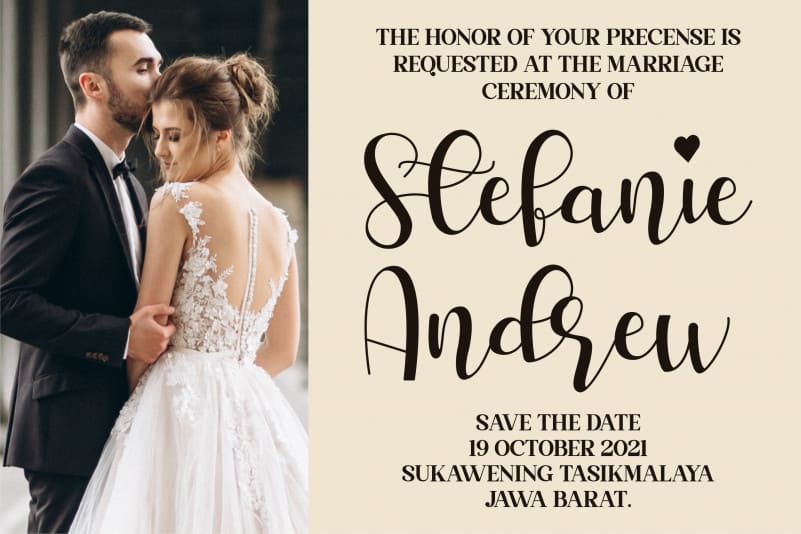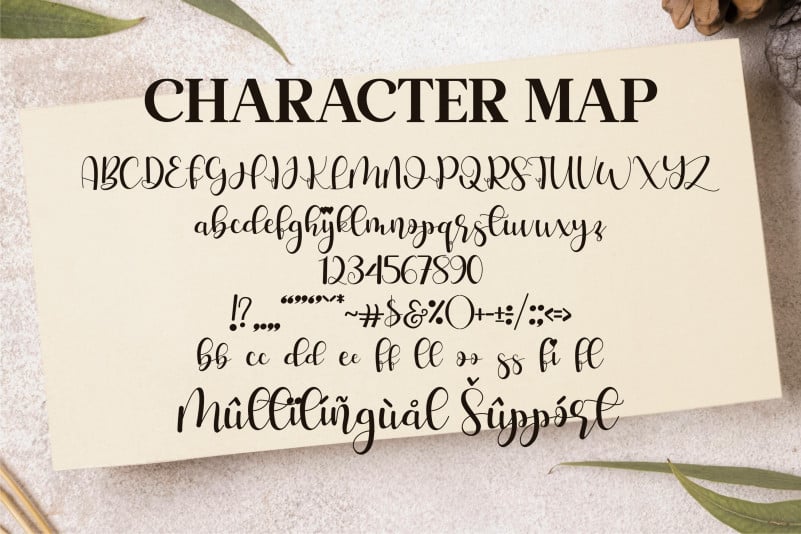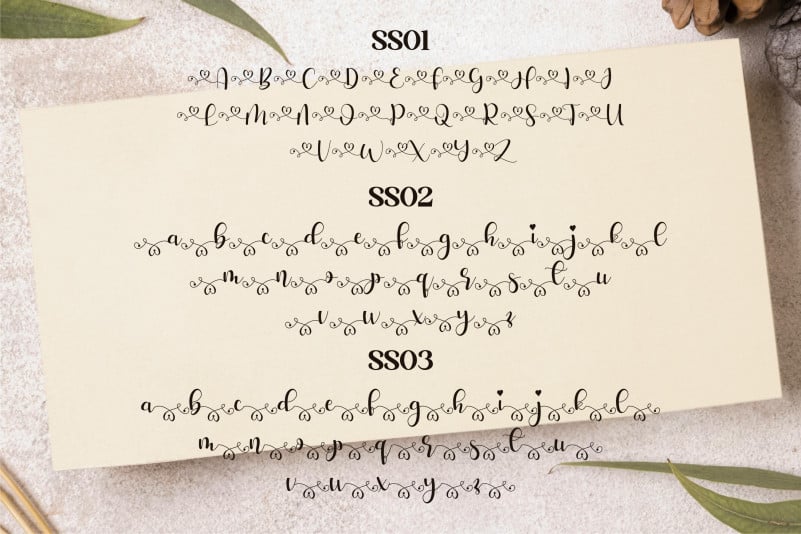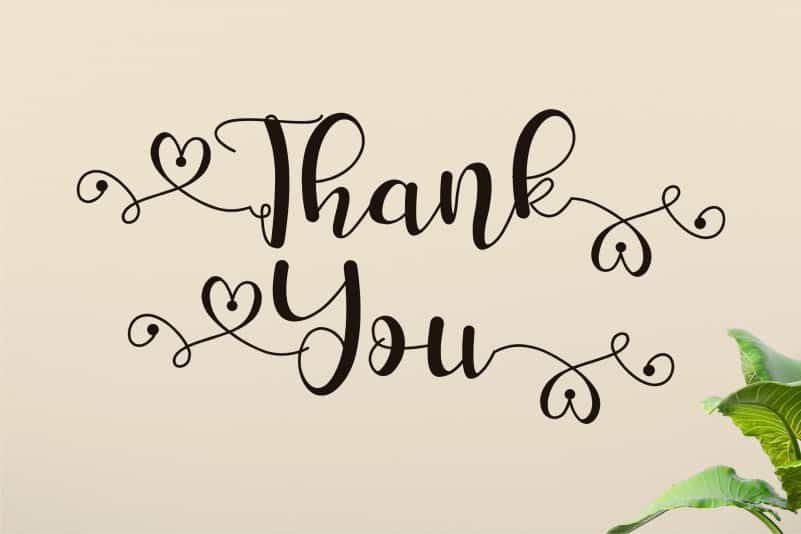
Hello Stefanie Calligraphy Font
Hello Stefanie Calligraphy Font, from Letterena, is a romantic calligraphy font, suitable for any projects such as: logos, branding projects, homeware designs, product packaging, mugs, quotes, posters, shopping bags, t-shirts, book covers, name card, invitation cards, greeting cards, label, photography, watermark, special events, and all your other lovely projects that need a beautiful Script taste.